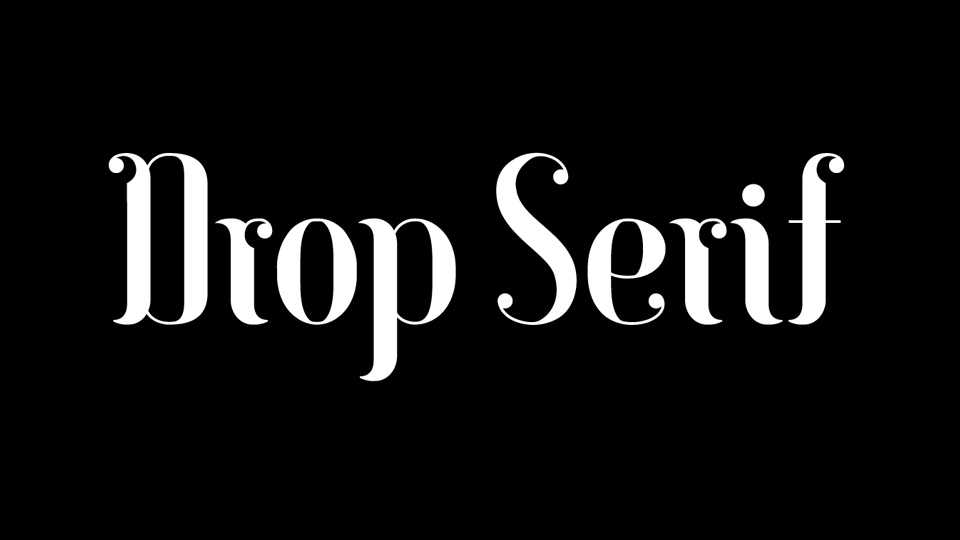
Download Drop Serif font, a decorative high contrast serif typeface, a fresh mix of originality and organic form. Drop Serif is suitable to use at large sizes in headlines for magazines, posters or packaging.
Designer: Monika Gause